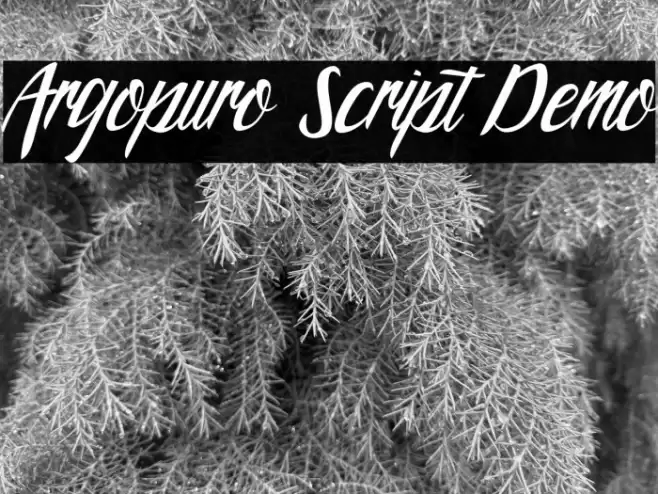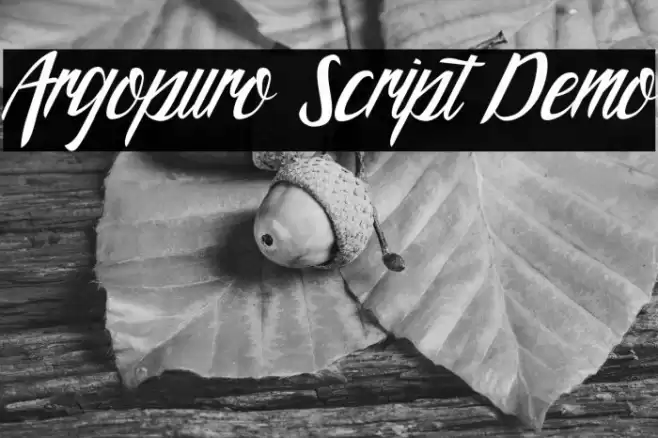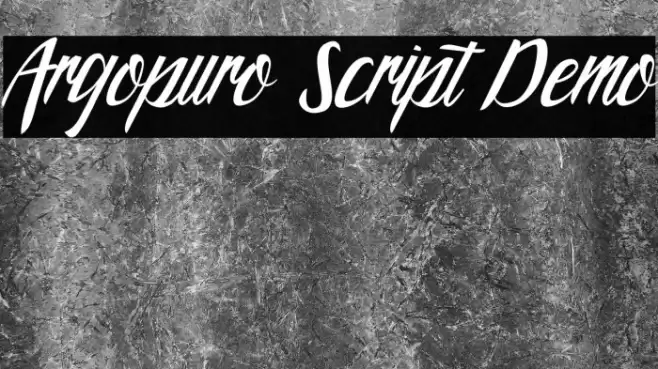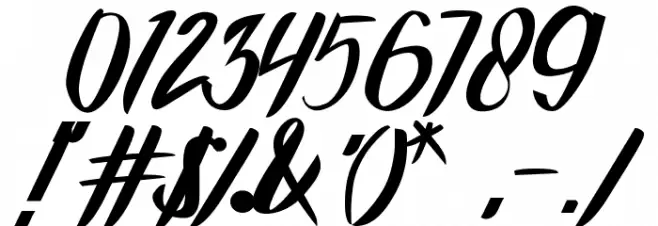
Argopuro Script Demo Font
Argopuro Script Demo Description
This script font exudes a dynamic and energetic feel, characterized by its flowing, cursive style. The letters are interconnected, creating a sense of movement and fluidity. The strokes are bold and expressive, with varying thickness that adds a touch of elegance and sophistication. The uppercase letters are tall and slightly slanted, while the lowercase letters maintain a consistent flow, enhancing readability. Numbers and special characters are crafted with the same attention to detail, ensuring a cohesive look across all elements. This font is perfect for projects that require a personal touch, such as invitations, greeting cards, or branding materials.
A bold, flowing script font with dynamic, interconnected letters from Regular fonts.
- Proposed Projects: Ideal for wedding invitations, personal branding, greeting cards, and artistic projects.
- Character Spacing: Tight
- Use Case: Logos, Headlines, Artistic projects